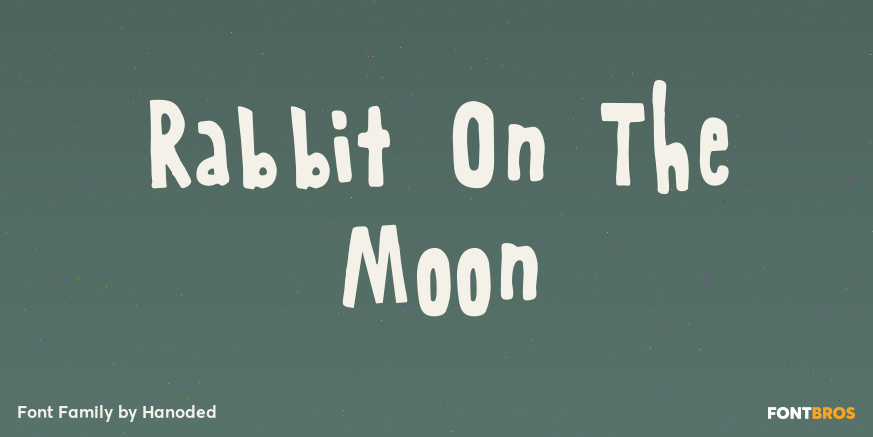
HomeFont BrosHandwrittenRabbit On The Moon HandwrittenWacky Rabbit On The Moon FacebookXPinterestWhatsApp 1 of 1 About Rabbit On The Moon This font is ideal for cartoons, greeting cards and children\’s books, as it has a happy ?feel? to it.  DOWNLOAD ON FONT BROSThis font is sold and delivered by Font Bros. Font Canyon may earn a commission if you buy through this link. People also explored Attack Font Paramount Font Milk Font Fresh Coconut Font ComicSons Font Loyalty Chicano Font Antithesis Letter Font Mandala Romantic Font Marie Honey Font 327 0 TagsRabbit On The Moon Font Previous articleMister TelevisionNext articleABTS Oklahoma LEAVE A REPLY Cancel reply Comment: Please enter your comment! Name:* Please enter your name here Email:* You have entered an incorrect email address! Please enter your email address here Website: Save my name, email, and website in this browser for the next time I comment. Personal Use Free Helsinki Personal Use Free Read more about this font Stigma Font Personal Use Free Read more about this font Pridaem Cooper Personal Use Free Read more about this font Juliagar Personal Use Free Read more about this font BLOG Where to Buy American Fonts Online in 2024 Where to Buy American Fonts Online: The Ultimate Guide for 2024 Looking for the perfect American font to elevate your design projects? You're in the... To increase your work productivity, choose the most readable fonts. Top 10 Handwritten Fonts That Elevate Your Designs Best Fonts for YouTube Videos: Make Your Thumbnails Stand Out